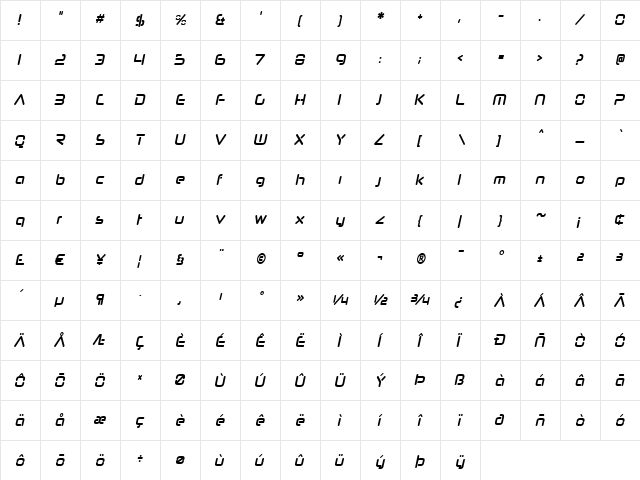
Neuropol Nova Cnd Bold Italic
Design Context for Neuropol Nova Cnd Typeface
Neuropol Nova Cnd takes a measured approach to typography — its balanced proportions and neutral character make it a reliable workhorse for both digital and print work. The slanted form adds forward momentum and visual energy. The heavy weight commands attention and anchors typographic hierarchies.
Pro Tip: Use Neuropol Nova Cnd for emphasis, pull quotes, and subheadings where its slanted energy can add rhythm to the layout.